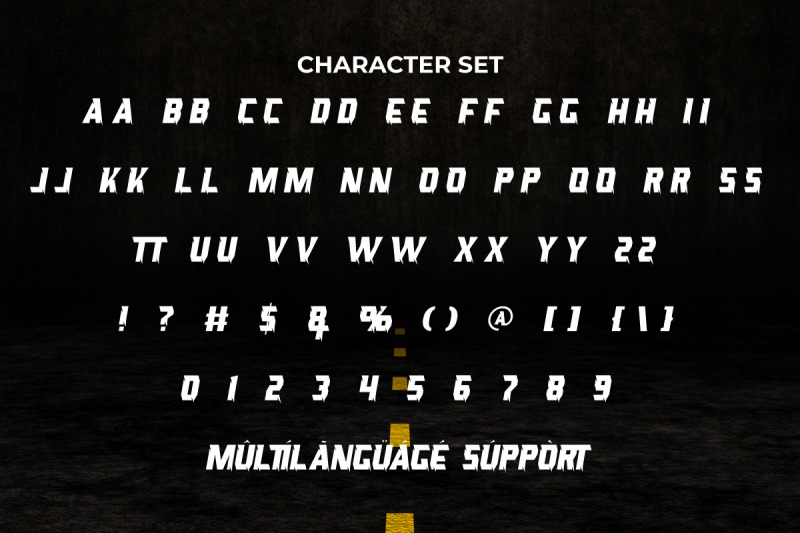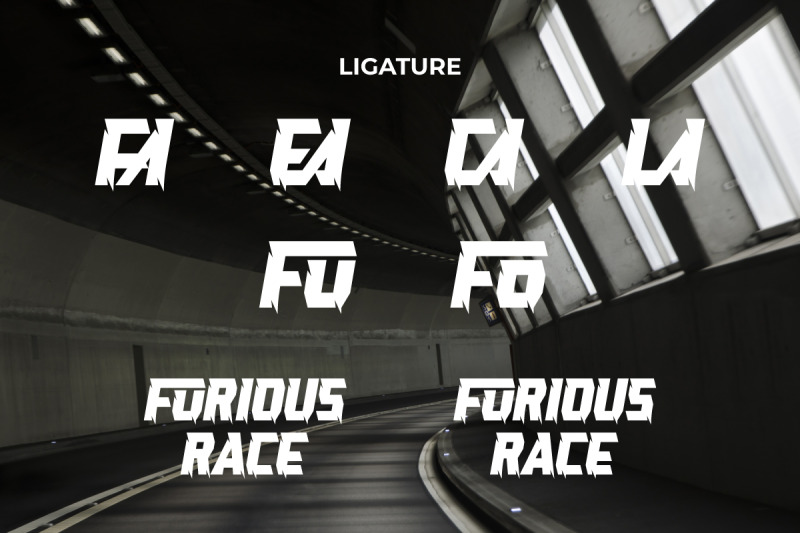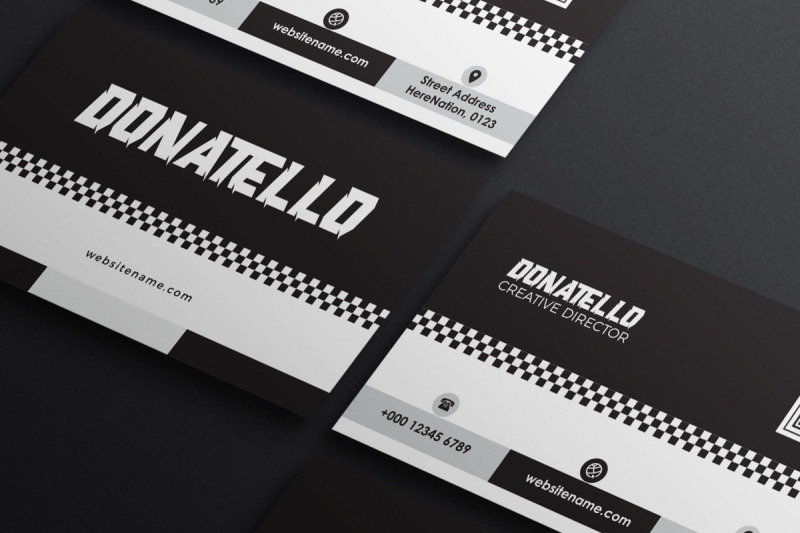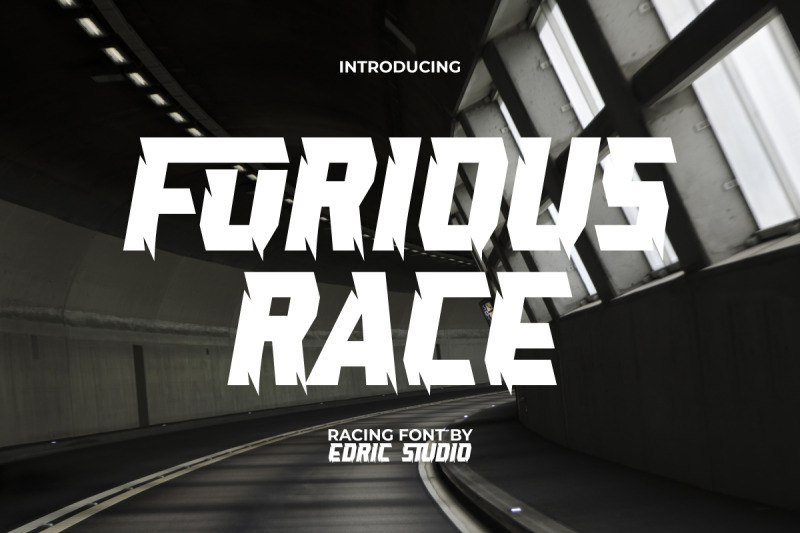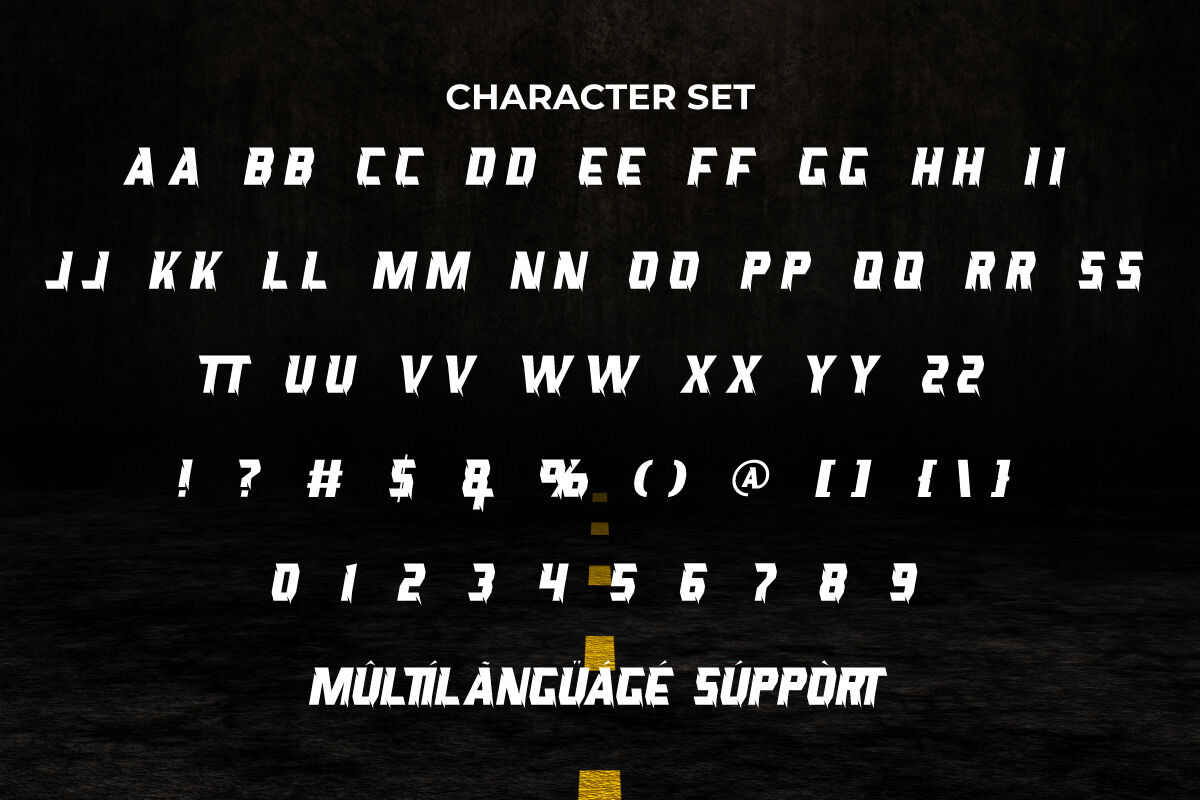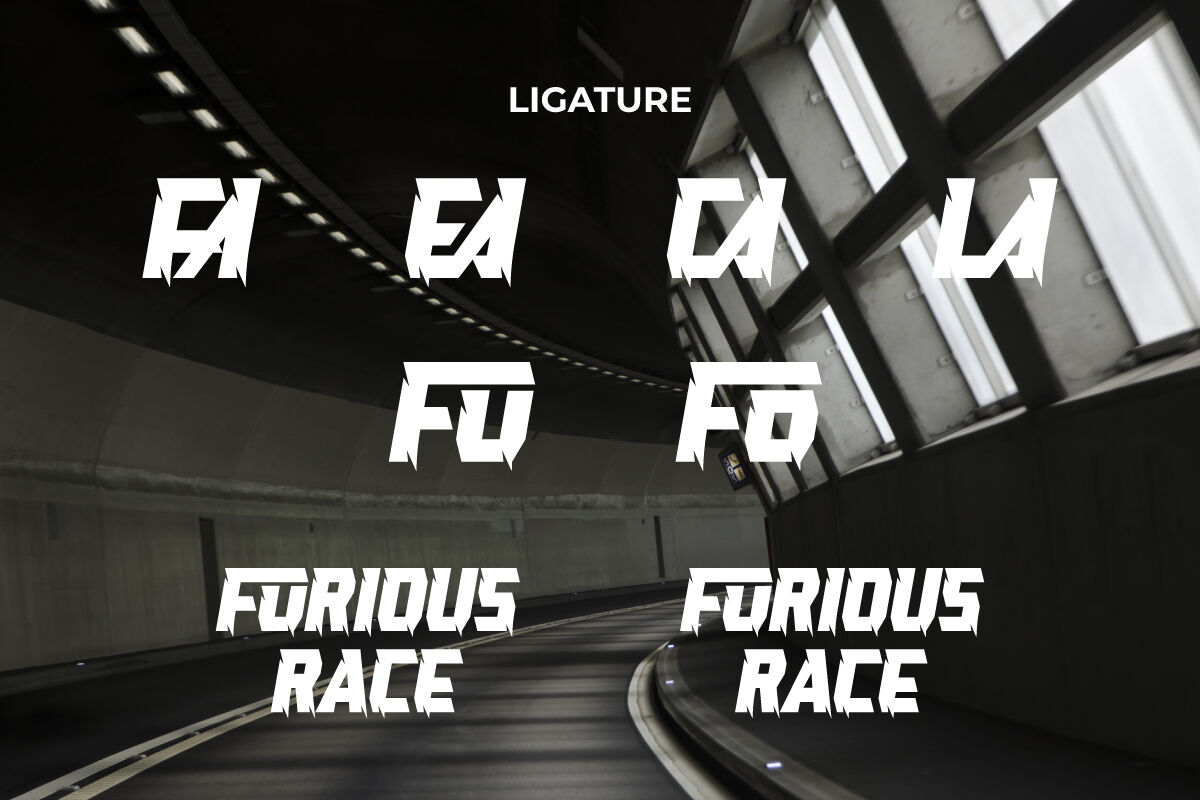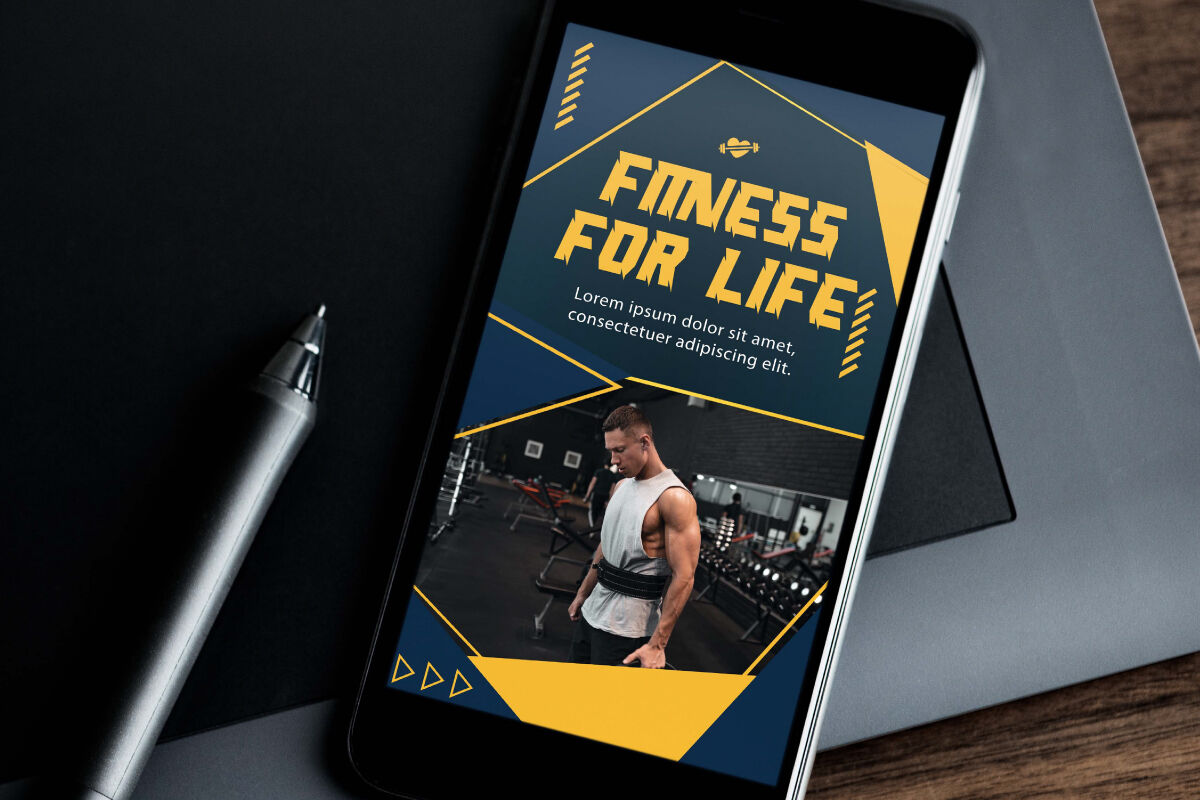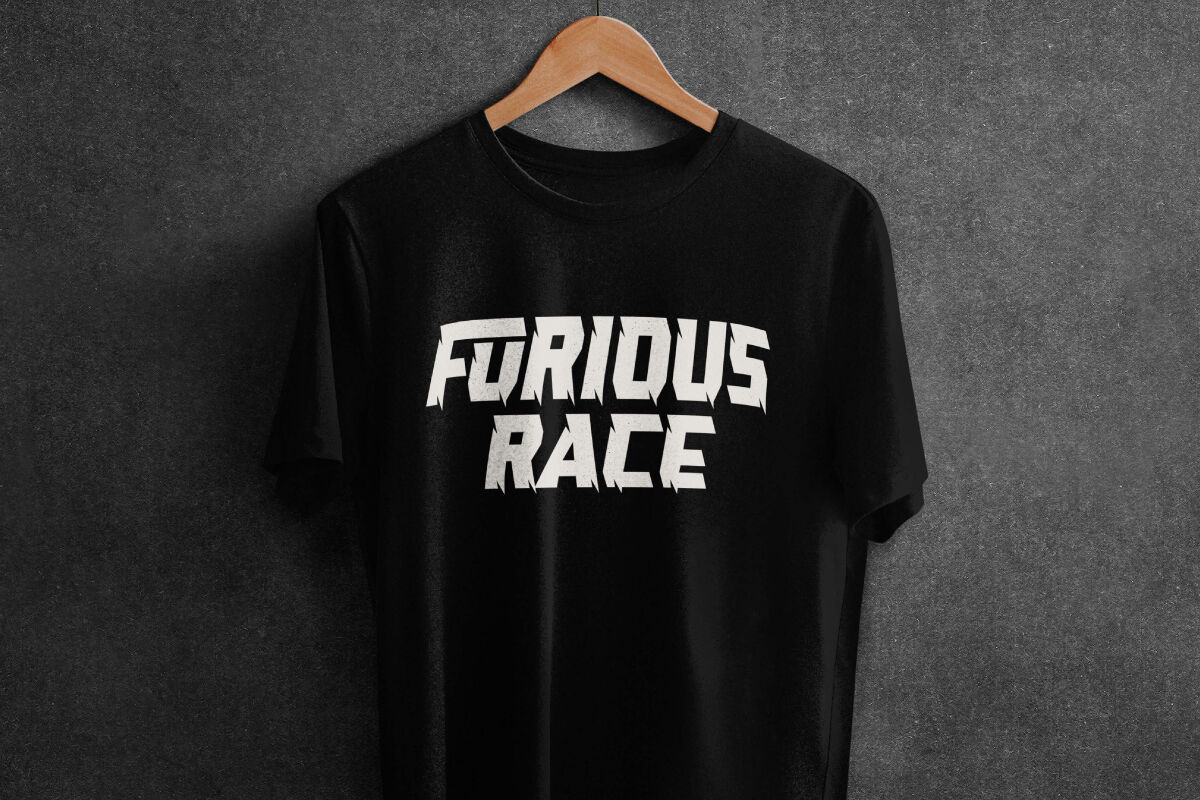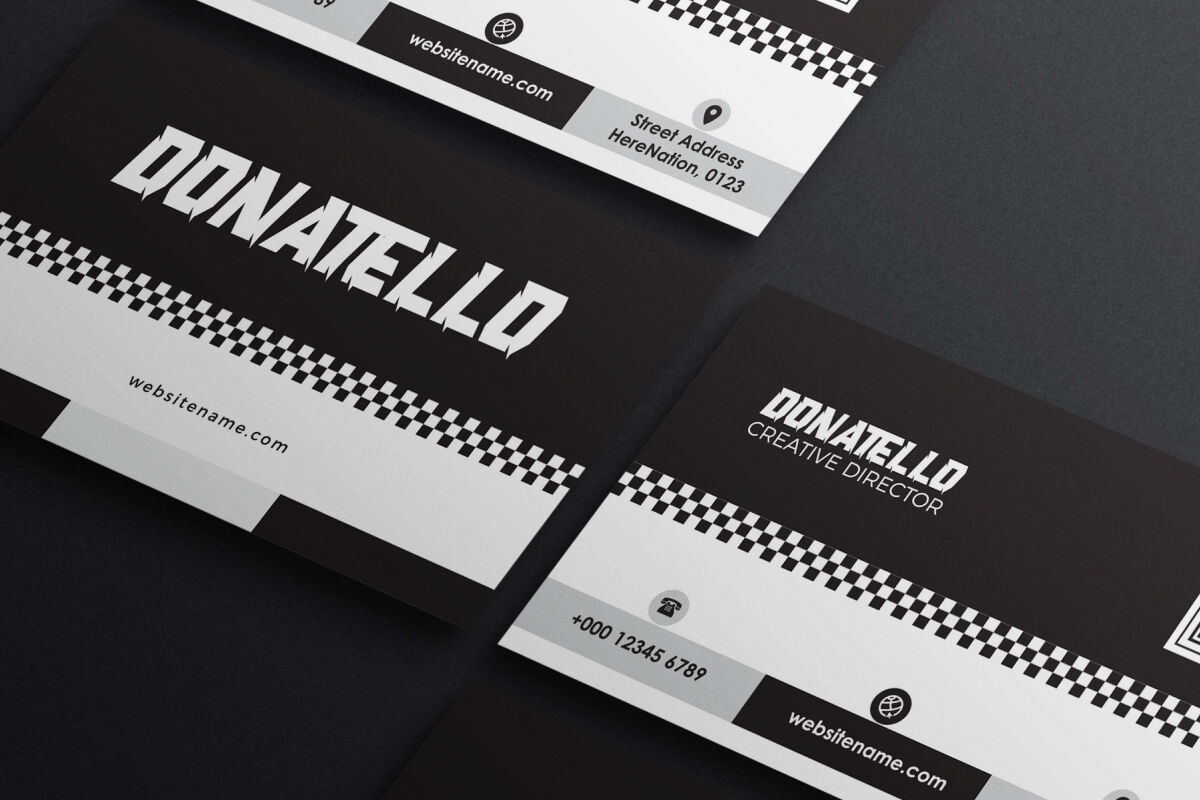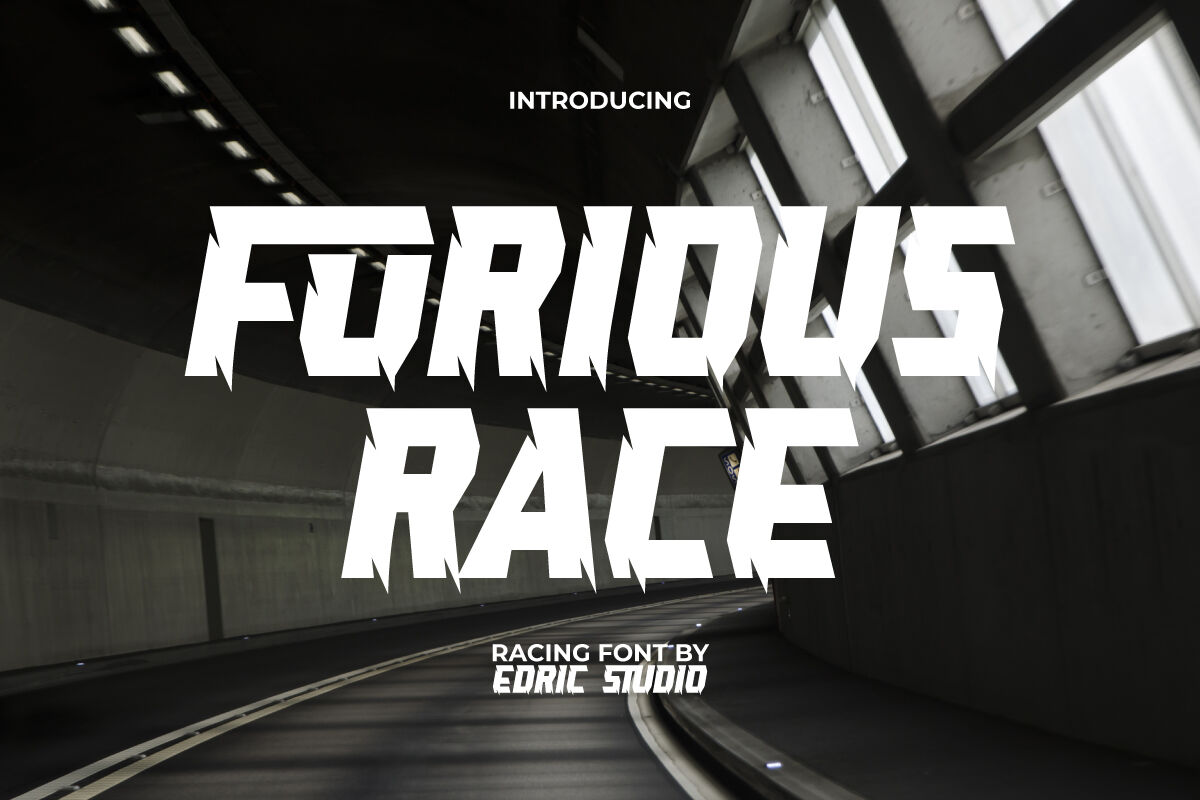
Furious Race Font a cool sporty gaming display font in a racing theme with a consistency of steeply slanted sharp corners in a loud and powerful style. This makes it a fast and powerful looking letter. It’s perfect for banner, brand logo, cards design, labels, magazine covers, poster, screen print, stationery, sticker, website, and many more.
Furious Race Font includes a complete set of ALL CAPS for upper and lower case letters, Numbers, Punctuation and Symbols. Also, the no less interesting Ligatures add artistic value to this font. The display font dynamic and sporty, designed for those who crave the action of speed and power. Use it for automotive, clothing brand, racing game, sports events, and other creative project.